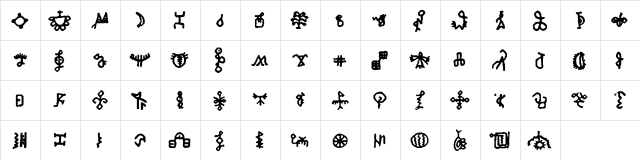
Bamum Symbols 1 Font Preview
Bamum Symbols 1 Bamum Symbols 1
Bamum Symbols 1 Font Details
| Style | Bamum Symbols 1 |
| Foundry | ~Sorcerer~ |
| Designer | ~Sorcerer~ |
Design Context for Bamum Symbols 1 Typeface
Bamum Symbols 1 is a composed and adaptable typeface that performs quietly and consistently across a wide range of design contexts.